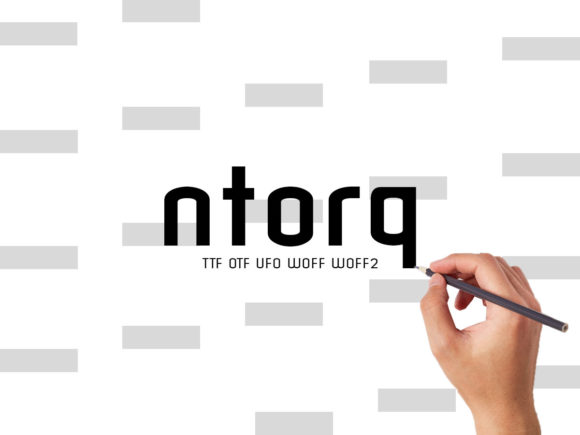
Unleash the Power of Ntorq Font: Your Creative Key to Unforgettable Designs!
In the realm of typography, Ntorq Font emerges as a true gem, a minimal and neat sans serif font, meticulously sculpted by the masterminds atDG_store. This is not just a font; it is a font that resonates with creativity, versatility, and an allure that is hard to resist.
Visualize your designs adorned with the sleek, clean lines of Ntorq Font. Its remarkable ability to blend seamlessly into a vast array of projects grants you the freedom to explore your imagination's boundaries. Whether crafting web designs, fashioning print layouts, or simply infusing your social media graphics with a touch of panache, Ntorq Font enlivens your creative endeavors, breathing life into your digital masterpieces.
Its versatility is simply unparalleled, transcending the boundaries of formal and formal settings. Ntorq Font exudes a unique charm in both formal documents and casual notes, making it an indispensable tool in your typographic arsenal. It grants you the creative freedom to craft designs that captivate and communicate with an impact that is both profound and enduring.
But Ntorq Font's allure extends beyond its creative versatility. Its emotional resonance is equally compelling, inspiring a sense of trust, confidence, and innovation in the hearts of your audience. With its clean, uncluttered lines, Ntorq Font lends an air of authority to your words, compelling your audience to sit up and take notice. It exudes a sense of modernity, signaling to your audience that you are a creative force to be reckoned with.
Envision the impact of your designs enhanced by the remarkable legibility and adaptability of the Ntorq Font. Its ability to scale seamlessly across various platforms ensures that your creative works maintain their visual integrity, regardless of the medium. This remarkable adaptability empowers you to reach a broader audience, captivating their attention and evoking a sense of wonder and inspiration.
The Ntorq Font awaits you, poised to unlock your creative potential and propel you to typographic heights. Experience the thrill of designs that are truly captivating, designs that communicate with an emotional resonance that is both profound and timeless. Unleash the power of Ntorq Font today and witness the birth of designs that speak to the heart and leave an enduring impression.